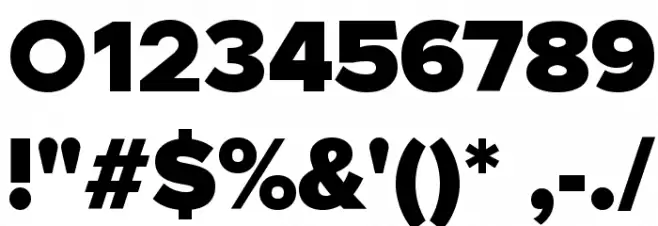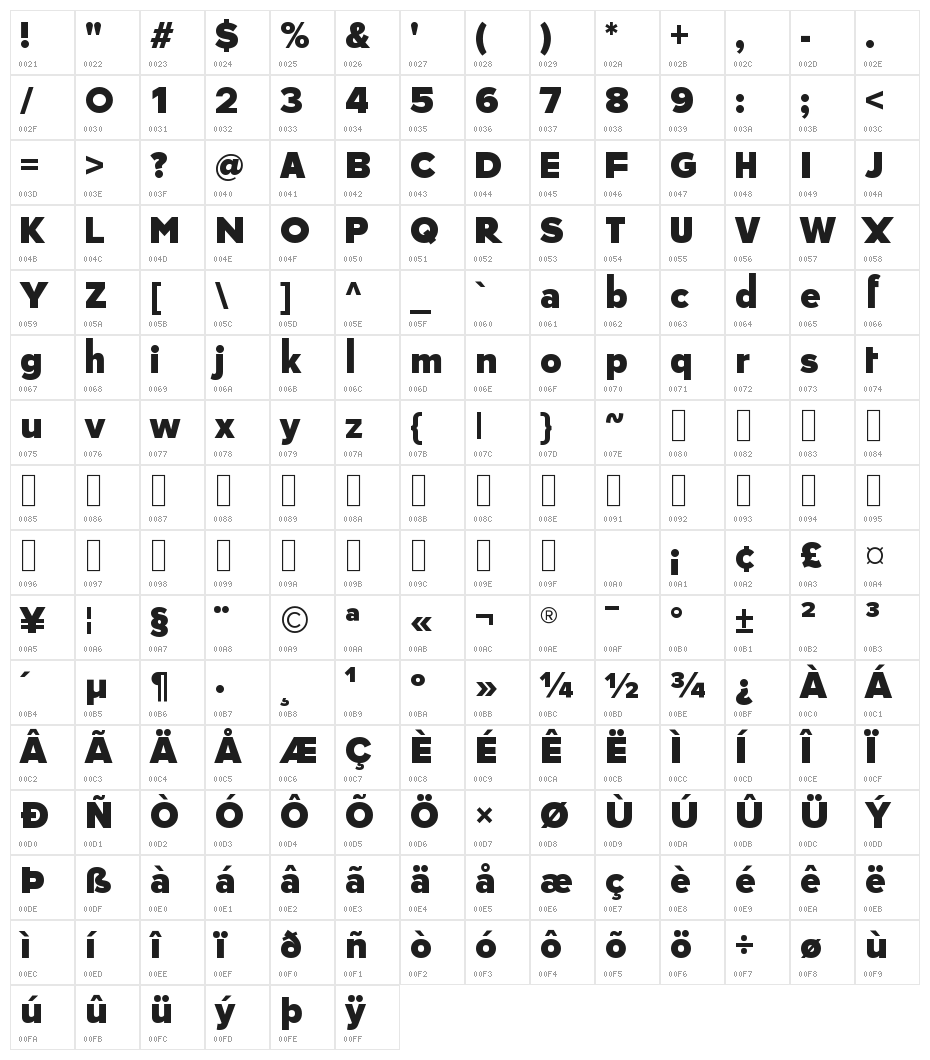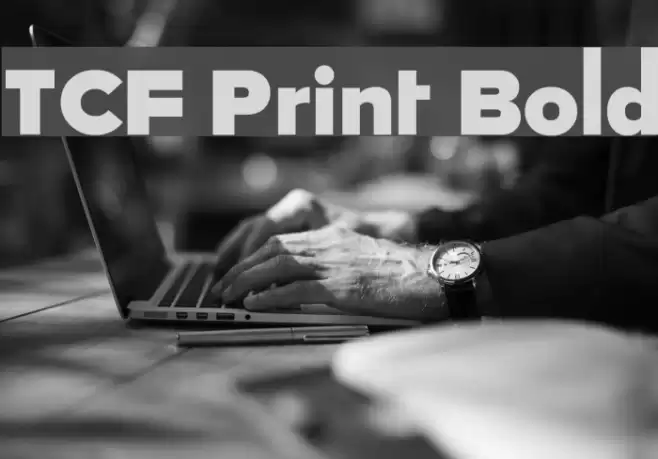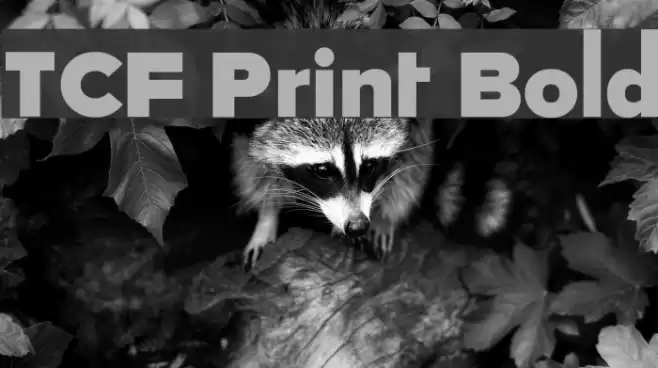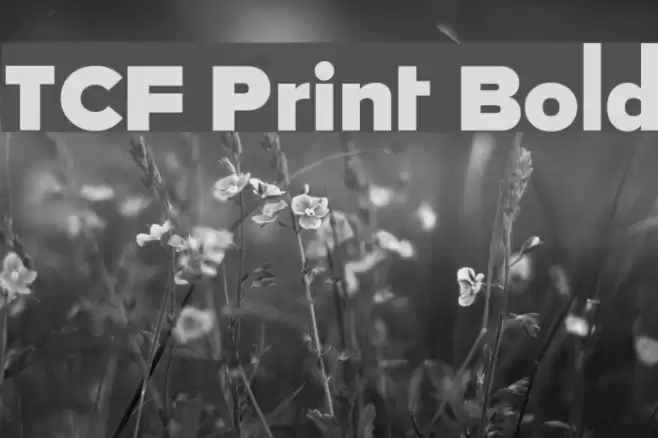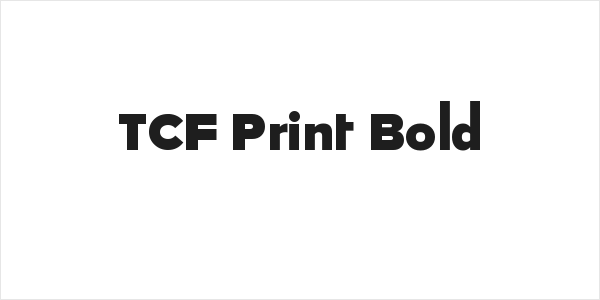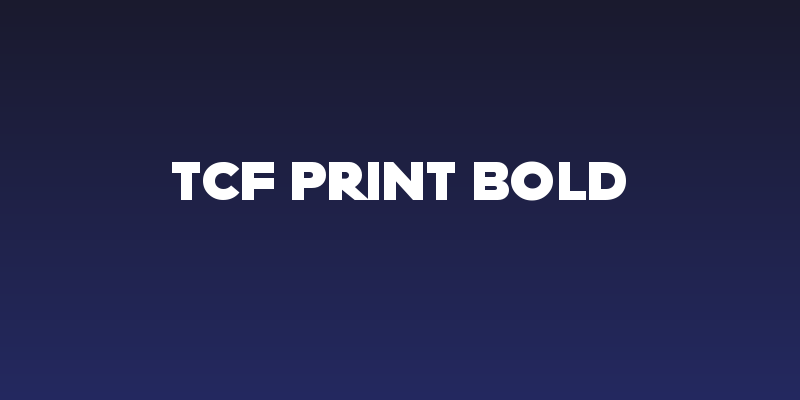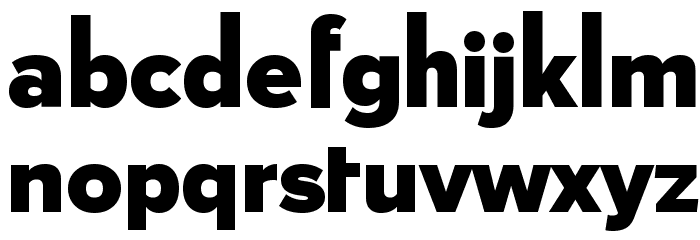
TCF Print Bold Font
TCF Print Bold Description
This font features bold, thick strokes that convey a strong and impactful presence. The characters are well-defined with a geometric structure, providing a modern and clean appearance. The uppercase and lowercase letters maintain consistent proportions, ensuring readability and balance. The numerals are equally bold, matching the overall style of the alphabet. Special characters are distinct and easily recognizable, making this font versatile for various applications. Its boldness and clarity make it suitable for attention-grabbing designs.